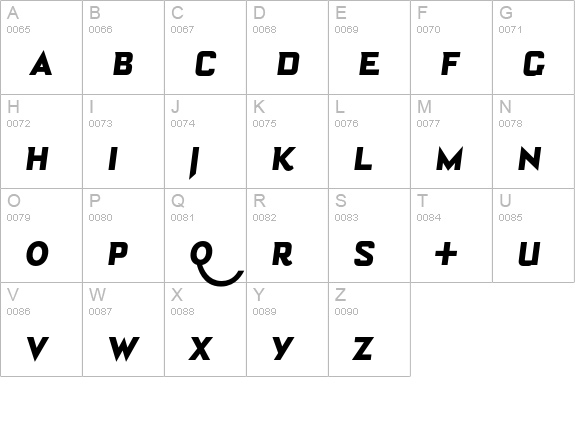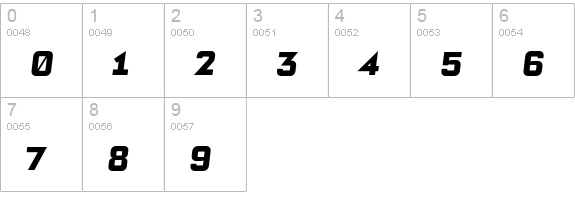
Bourgeois UltraItalAlt Font Details
The Bourgeois UltraItalAlt font exudes elegance and sophistication with its sleek and modern design. Its ultra-italic style adds a touch of flair and dynamism to any project, making it perfect for creating eye-catching headlines or emphasizing important text. This font strikes the perfect balance between traditional and contemporary aesthetics, making it versatile for a wide range of design applications. What's even better is that the Bourgeois UltraItalAlt font is available for free download at FontsMarket.com. Now you can elevate your design projects without having to worry about breaking the bank. Whether you're working on branding materials, editorial layouts, or digital designs, this font is sure to make a lasting impression. Don't miss out on the opportunity to add this stunning typeface to your collection today!